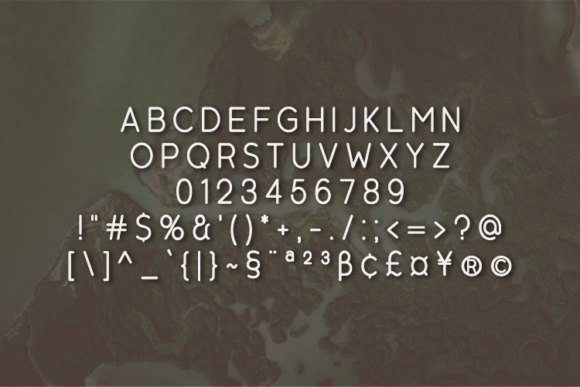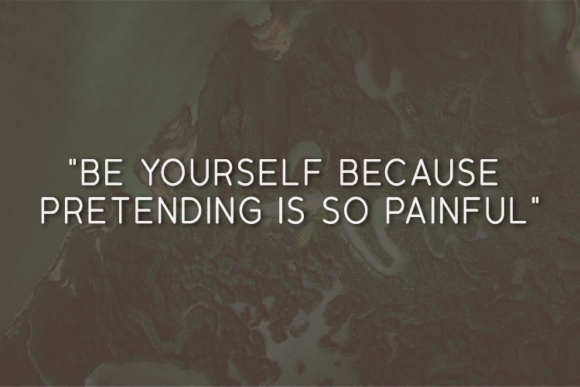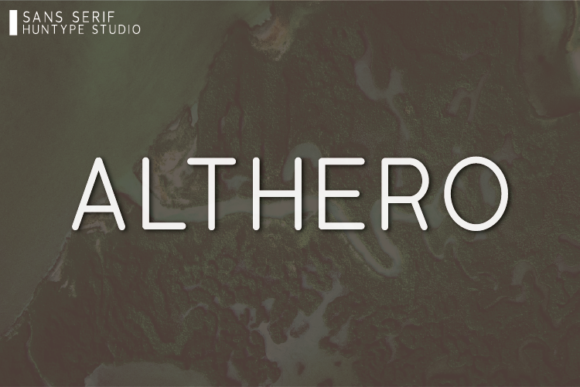
Introducing Althero Font: The Ultimate Minimalist Sans Serif for Designers
In the world of typography, fonts play a crucial role in conveying messages, expressing emotions, and creating visual identities. For designers and crafters, finding the perfect font can be a daunting task. However, if you’re looking for a versatile and elegant sans serif font that can elevate your designs, look no further than Althero Font. In this article, we’ll explore the features, benefits, and uses of Althero Font, and why it’s about to become your new favorite go-to font.
What is Althero Font?
Althero is a minimal, yet elegant sans serif font that boasts a neat and simple style. Its clean lines, subtle curves, and balanced proportions make it an excellent choice for a wide range of design projects. Whether you’re working on a logo, branding materials, digital interfaces, or print designs, Althero Font is the perfect companion to help you achieve your creative goals.
Key Features of Althero Font
• Minimalist design: Althero’s simplicity is its greatest strength. The font’s minimalist design ensures that your message takes center stage, while the font provides a sophisticated and elegant backdrop.
• Sans serif style: The font’s sans serif style gives it a modern and fresh feel, making it perfect for designs that require a clean and contemporary look.
• Neat and simple style: Althero’s neat and simple style ensures that it can be paired with a wide range of design elements, from bold graphics to delicate illustrations.
• High legibility: The font’s clear and balanced proportions ensure that it’s highly legible, even at small sizes.
Benefits of Using Althero Font
So, why should you choose Althero Font for your design projects? Here are just a few benefits of using this versatile font:
• Versatility: Althero Font is suitable for a wide range of design projects, from logos and branding materials to digital interfaces and print designs.
• Elegance: The font’s elegant design ensures that your designs look sophisticated and refined.
• Readability: Althero’s high legibility ensures that your message is conveyed clearly and effectively.
• Flexibility: The font’s simple style makes it easy to pair with other design elements, allowing you to experiment with different design combinations.
Who Can Benefit from Althero Font?
Althero Font is an excellent choice for a wide range of designers and crafters, including:
• Graphic designers: Althero Font is perfect for graphic designers who need a versatile and elegant font for their design projects.
• UI/UX designers: The font’s clean and simple style makes it an excellent choice for digital interfaces and user experience design.
• Branding experts: Althero Font is suitable for branding projects that require a sophisticated and elegant look.
• Crafters and makers: The font’s simplicity and elegance make it perfect for crafters and makers who need a versatile font for their handmade projects.
How to Use Althero Font
Using Althero Font is easy. Here are a few tips to get you started:
• Pair it with bold graphics: Althero Font pairs well with bold graphics and illustrations. Try combining it with a bold graphic element to create a striking design.
• Use it for body text: The font’s high legibility makes it perfect for body text. Use it for paragraphs, articles, and other written content.
• Experiment with different sizes: Althero Font looks great at a range of sizes. Experiment with different font sizes to create visual interest and hierarchy.
Font Name Althero Font
Author Huntype
In conclusion, Althero Font is a versatile and elegant sans serif font that’s perfect for designers and crafters. Its minimalist design, neat and simple style, and high legibility make it an excellent choice for a wide range of design projects. Whether you’re working on a logo, branding materials, digital interfaces, or print designs, Althero Font is the perfect companion to help you achieve your creative goals. So why wait? Try Althero Font today and discover why it’s about to become your new favorite go-to font!